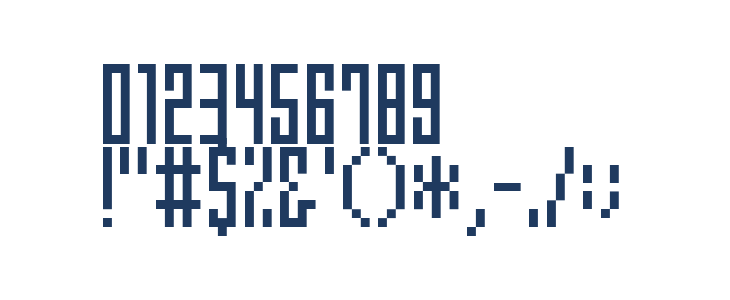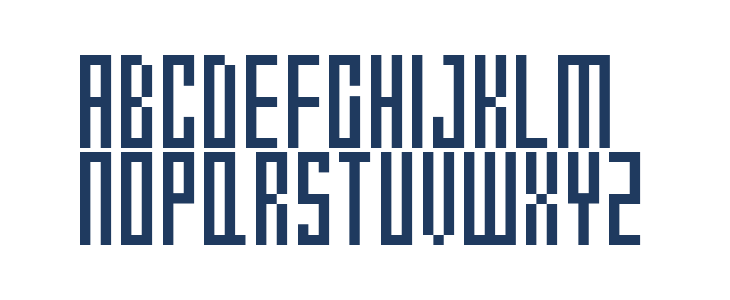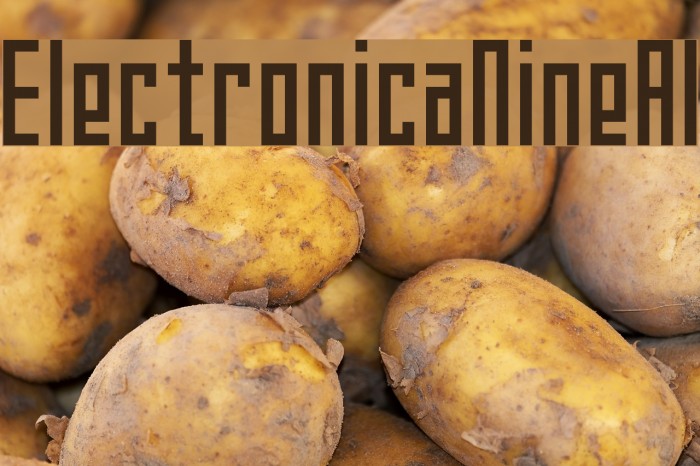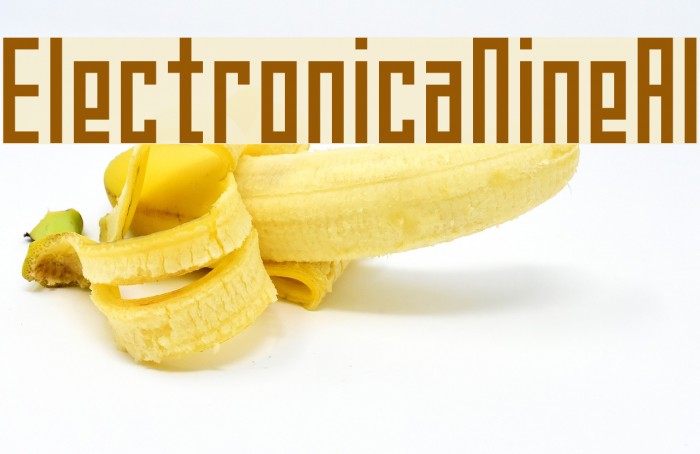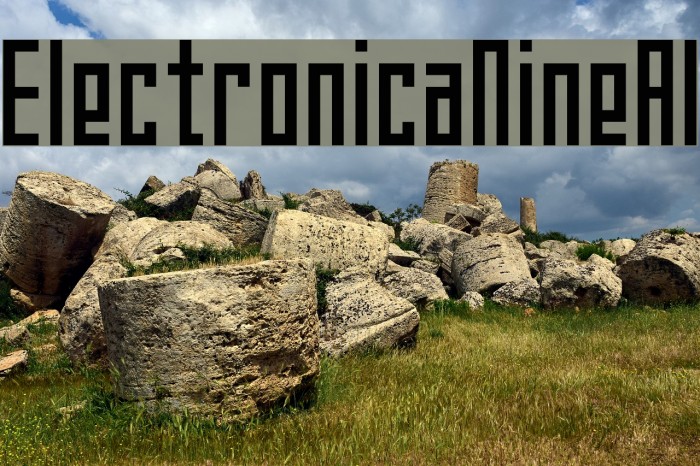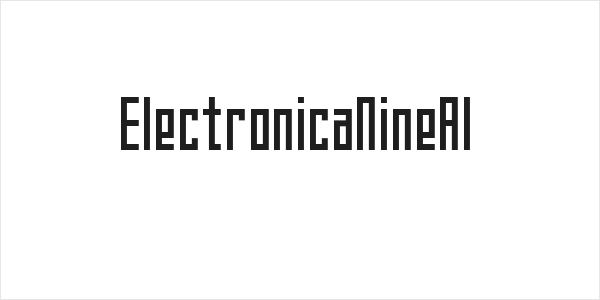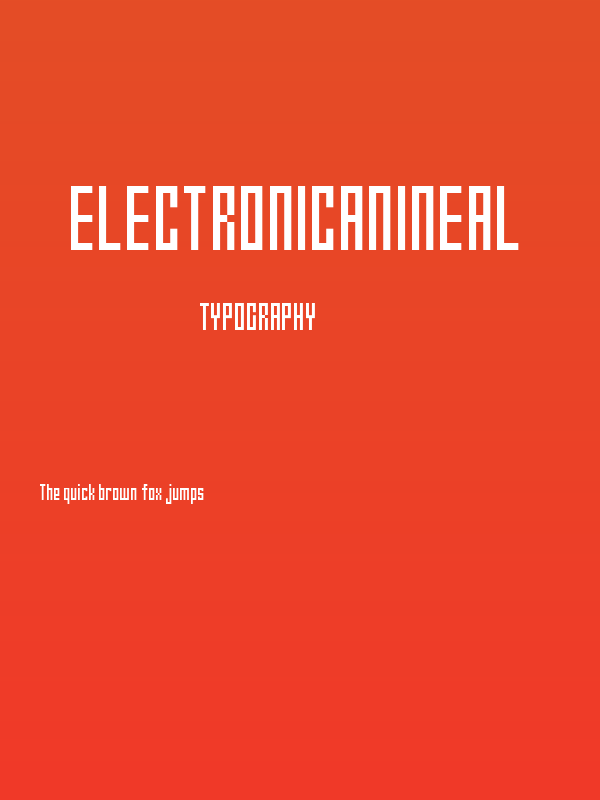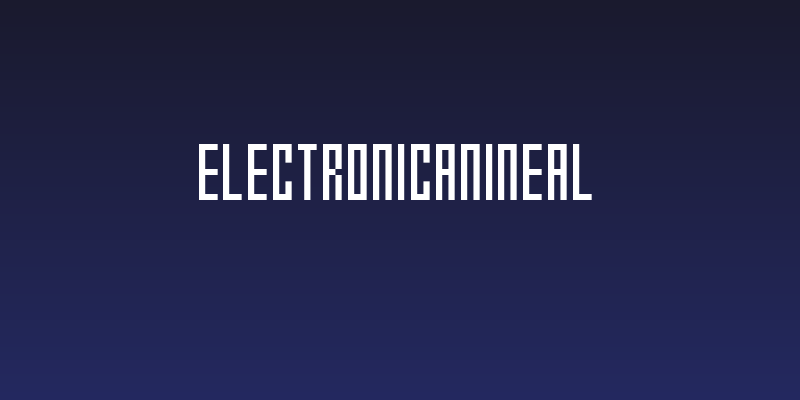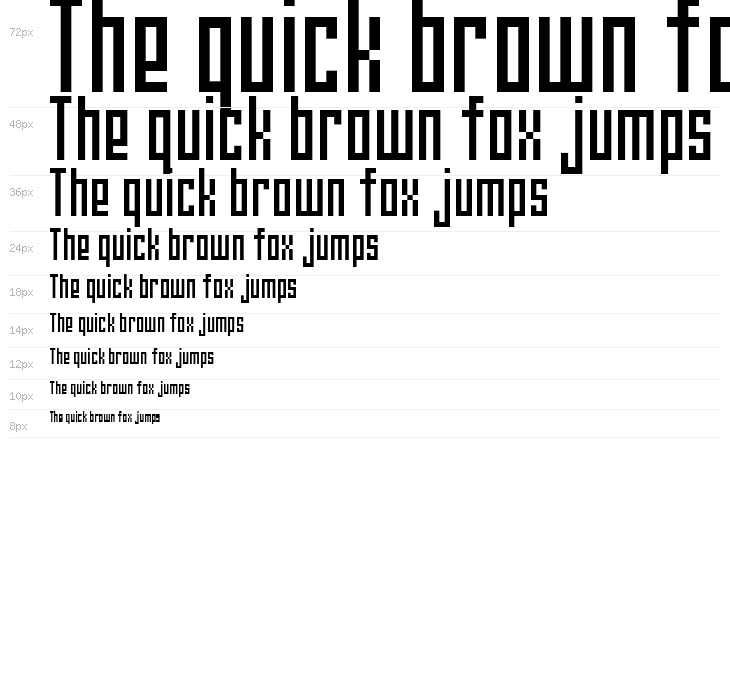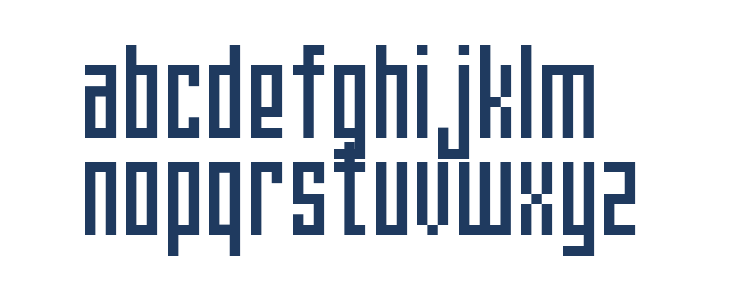
ElectronicaNineAl Font
ElectronicaNineAl Description
This font features a bold, geometric design with a distinctly digital aesthetic. The characters are constructed with sharp, angular lines and a uniform stroke width, creating a pixelated appearance reminiscent of early computer graphics. The uppercase and lowercase letters maintain a consistent height, contributing to a cohesive and structured look. The numerals and special characters follow the same design principles, ensuring uniformity across all glyphs. This font's style is both modern and retro, capturing the essence of digital and electronic themes.
| Overall Style | Modern, Retro |
| Use Case | Logos, Headlines, Digital Art |
| Proposed Projects | Ideal for digital art projects, retro-themed designs, video game graphics, and tech-related branding. |